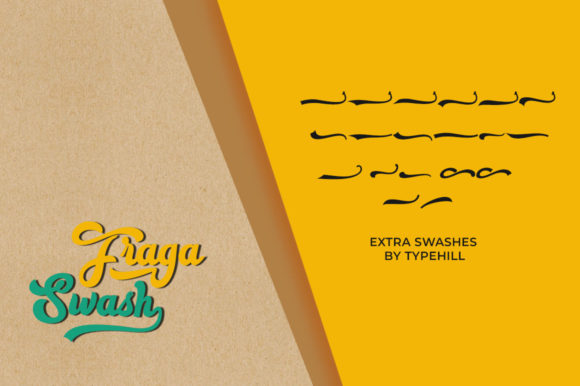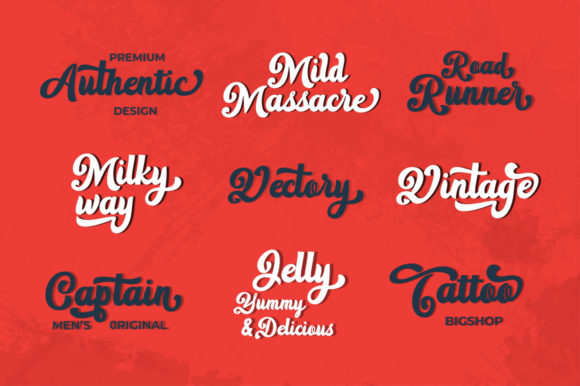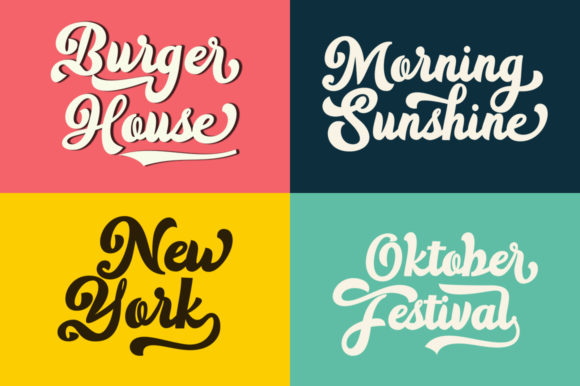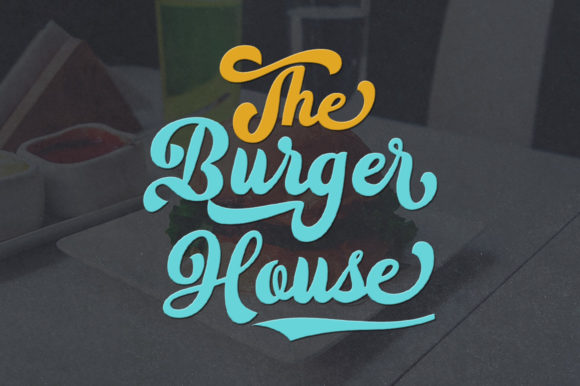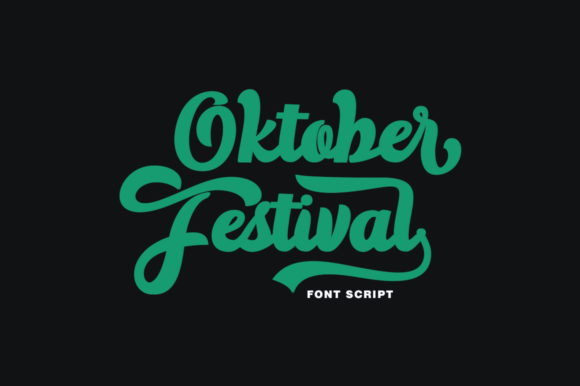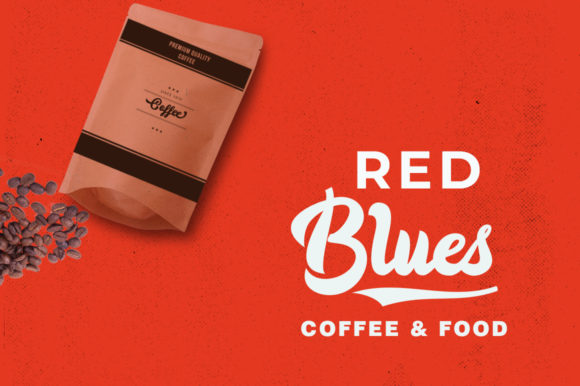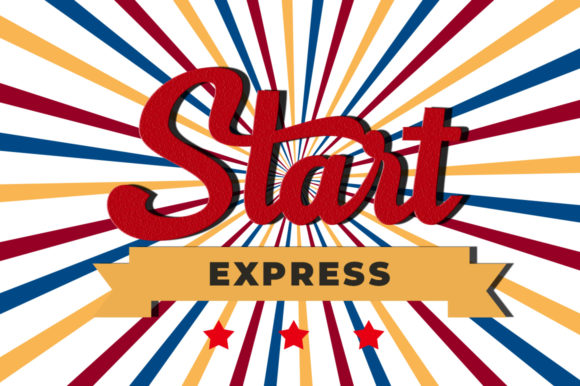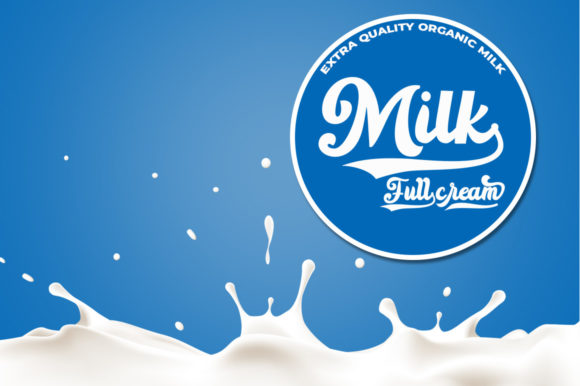
HomeScript FontsThe Fraga Script Font Script Fonts The Fraga Script Font FacebookXPinterestWhatsApp The Fraga Script Font Poster 2 The Fraga Script Font Poster 3 The Fraga Script Font Poster 4 The Fraga Script Font Poster 5 The Fraga Script Font Poster 6 The Fraga Script Font Poster 7 The Fraga Script Font Poster 8 The Fraga Script Font Poster 9 The Fraga Script Font Poster 10 About The Fraga Script Font The Fraga is an old-timey script with a vintage style. It will turn any design project into a true standout! DOWNLOAD NOW People also explored Jerlista Siny Font Greatheart Font Winter Signature Font Telegraph Alpha Step Magical Monday Font Farmhouse Font Coldera Font Umba Font 330 0 TagsThe Fraga Script Font Previous articleHealth FontNext articleSherlyn Font LEAVE A REPLY Cancel reply Comment: Please enter your comment! Name:* Please enter your name here Email:* You have entered an incorrect email address! Please enter your email address here Website: Save my name, email, and website in this browser for the next time I comment. Personal Use Free Rise of Kingdom Personal Use Free Read more about this font Pasile Personal Use Free Read more about this font Travelling Free Brush Personal Use Free Read more about this font Adelia Font Personal Use Free Read more about this font BLOG The 10 Best Handwriting Fonts to Add Personality to Your Designs 10 of the Best Handwriting Fonts for Adding Personality to Your Designs There will undoubtedly be no other better choice than handwriting fonts to give... Elegant Wedding Invitation Fonts – Handwritten & Script Fonts Best Fonts for YouTube Videos: Make Your Thumbnails Stand Out How to Cut Any Font on Cricut: Convert a Font to SVG (Free)